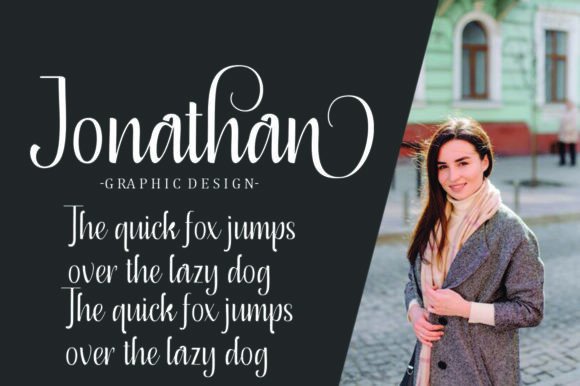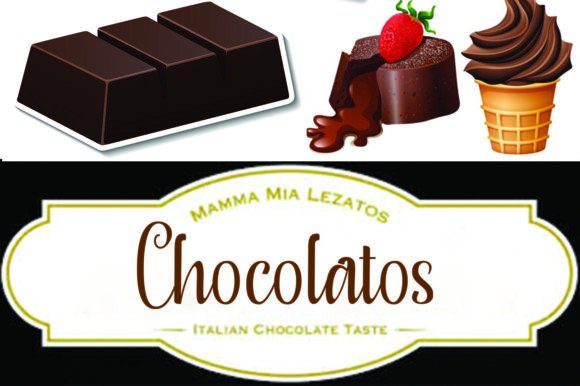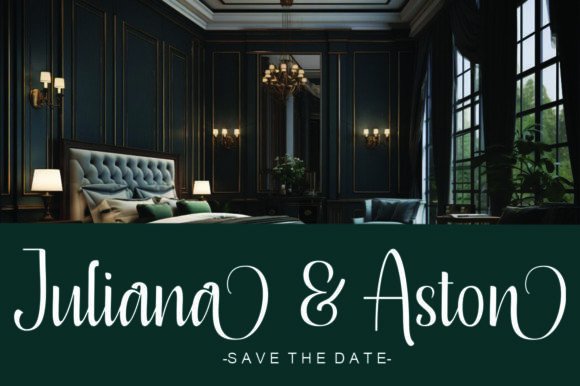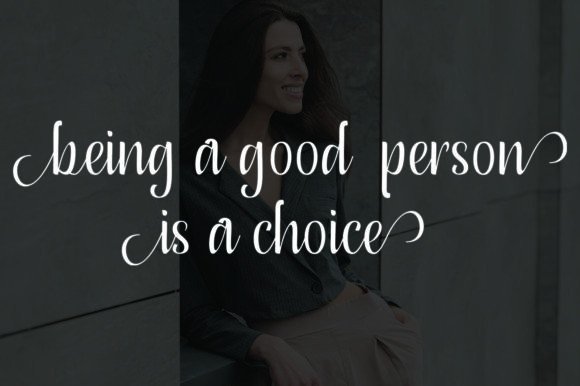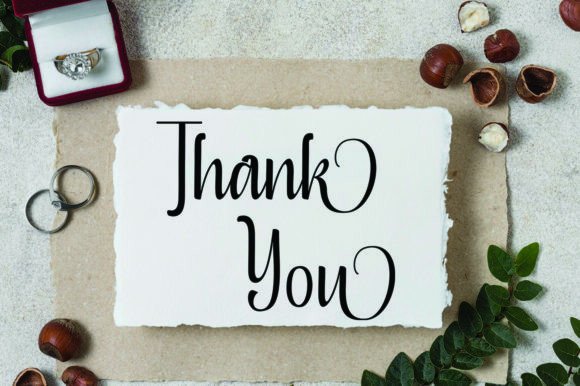
Bertina Script Font: Elevate Your Designs with a Touch of Modern Elegance
In the world of typography, script fonts hold a special place for their elegance, charm, and versatility. Among the myriad of script fonts available, Bertina Script Font stands out as a modern and captivating choice for designers and crafters alike. This article will delve into the unique features of Bertina Script, its uses, and why it has become a go-to font for various design projects.
What is Bertina Script Font?
Bertina Script is a newly introduced modern script font characterized by its irregular baseline, which gives it a distinctive and stylish look. Unlike traditional script fonts that follow a uniform baseline, Bertina Script’s irregularity adds a touch of whimsy and personality to any design. This unique feature makes it an excellent choice for those looking to add a bit of flair to their projects.
Key Features of Bertina Script Font
- Modern and Elegant: Bertina Script boasts a contemporary look that can elevate the aesthetic of any design.
- Irregular Baseline: Its unique irregular baseline sets it apart from more traditional script fonts, offering a fresh and dynamic appearance.
- Versatile: Suitable for a wide range of design projects, from wedding invitations to business cards.
- Easy to Read: Despite its stylistic irregularities, Bertina Script remains highly legible, making it practical for both headings and body text.
Uses of Bertina Script Font
The versatility of Bertina Script Font makes it an ideal choice for various design applications. Here are some popular uses:
- Wedding Invitations: The elegant and modern look of Bertina Script makes it perfect for wedding invitations, adding a touch of sophistication and romance.
- Thank You Cards: Express gratitude in style with beautifully designed thank you cards featuring Bertina Script.
- Quotes: Highlight meaningful quotes with a font that stands out and captures attention.
- Greeting Cards: Whether it’s a birthday, anniversary, or holiday greeting, Bertina Script can add a personal and festive touch.
- Logos: For businesses looking to establish a brand identity that is both modern and elegant, Bertina Script can be a great choice.
- Business Cards: Stand out in the professional world with stylish business cards that feature Bertina Script.
Why Choose Bertina Script Font?
In a sea of script fonts, Bertina Script offers several advantages:
- Uniqueness: Its irregular baseline makes it unique and can help your designs stand out.
- Modern Appeal: Ideal for designers and crafters looking for a contemporary script font.
- Versatility: Can be used across a variety of projects, from personal to professional.
Tips for Using Bertina Script Font
To make the most of Bertina Script, consider the following tips:
- Pair with Complementary Fonts: For optimal readability and aesthetic balance, pair Bertina Script with clean, sans-serif fonts for body text.
- Adjust Letter Spacing: Depending on the project, adjusting the letter spacing can enhance readability and appearance.
- Use for Headings and Accents: While it’s elegant enough for body text, using Bertina Script for headings and accents can add a dynamic layer to your designs.
Bertina Script Font is a modern and elegant script font that brings a fresh perspective to the world of typography. Its unique irregular baseline, combined with its readability and versatility, makes it an excellent choice for a wide range of design projects. Whether you’re a designer looking for a stylish font for a client’s wedding invitation or a crafter seeking a modern look for your handmade cards, Bertina Script is sure to impress. With its growing popularity, it’s clear that Bertina Script is set to become a favorite among designers and crafters alike.